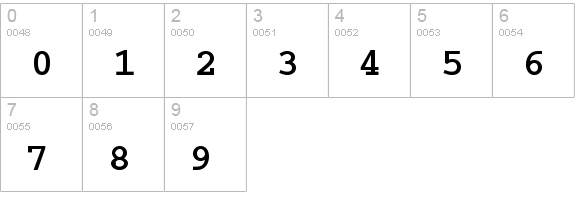
PT Courier Bold Cyrillic is a strong, high-contrast variant in the PT typeface family \xE2\x80\x94 well suited to headlines, attention-grabbing titles, and strong calls-to-action.
PT Courier Bold Cyrillic font is a bold and impactful typeface designed for Cyrillic languages. Its strong and sturdy appearance makes it perfect for headlines, titles, and other attention-grabbing text. The bold weight of this font ensures that your message will stand out and make a lasting impression. What makes PT Courier Bold Cyrillic font even better is that it is available for free download at FontsMarket.com. This means you can easily access this high-quality font and use it in your projects without any cost. Whether you are a designer, writer, or anyone in need of a bold Cyrillic font, PT Courier Bold Cyrillic is a great choice that won't break the bank. Download it today and enhance your designs with this striking and versatile typeface.